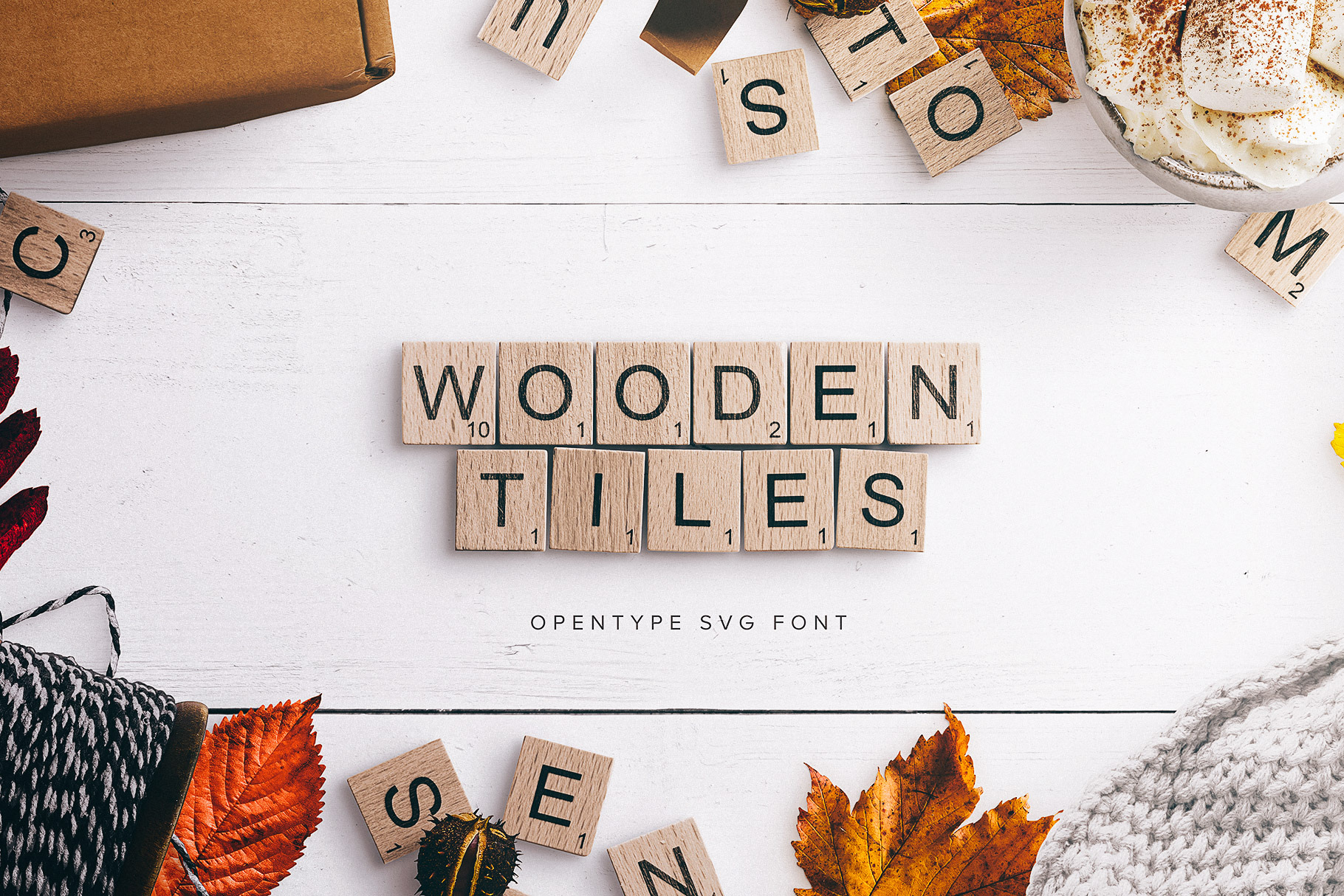
Wooden Tiles Font
Introducing Wooden Tiles a Scrabble-Like OpenType SVG font a great font to express your thoughts and quotes within your already taken pictures or custom designs. It's a perfect match for our Custom Scene Collection packs.
- OpenType SVG Font with uppercase alphabets, numbers and special characters. Two styles available Regular and Italic. The Regular style has a straight tile appearance and the Italic style has a slightly irregular look.